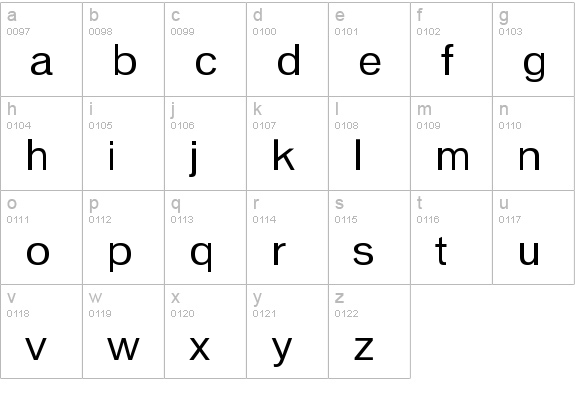
Introducing VonnesTTBook, a versatile and modern font that is sure to elevate your design projects to new heights. With its clean lines and contemporary feel, VonnesTTBook is perfect for a wide range of uses, from branding and packaging to digital and print media. But what sets VonnesTTBook apart from other fonts is its unique feature - it is free! That's right, this incredible font is freely available to download at FontsMarket.com. Whether you're a professional designer or a hobbyist, you can now access this high-quality font without breaking the bank. VonnesTTBook offers a wide range of weights and styles, allowing you to experiment and create the perfect look for your project. The font's legibility and readability make it ideal for both headlines and body text, ensuring that your message is conveyed with clarity and impact. The attention to detail in VonnesTTBook is truly remarkable. Each character is meticulously crafted, resulting in a font that is not only visually appealing but also easy on the eyes. The balanced proportions and thoughtful kerning make for a harmonious and professional appearance. Whether you're designing a website, a logo, or a poster, VonnesTTBook will undoubtedly add a touch of elegance and sophistication to your work. Its versatility and timeless aesthetic make it suitable for a wide range of design styles and purposes. So why wait? Don't miss out on the opportunity to enhance your design projects with VonnesTTBook. Download this exceptional font for free at FontsMarket.com and unlock a world of creative possibilities. Elevate your designs with VonnesTTBook and make a lasting impression today.